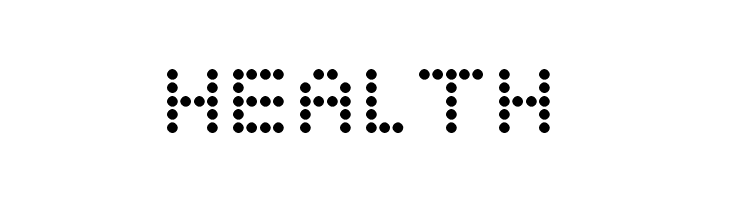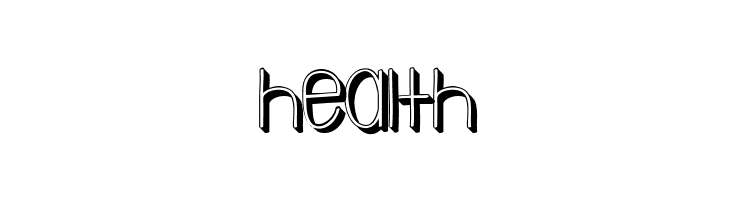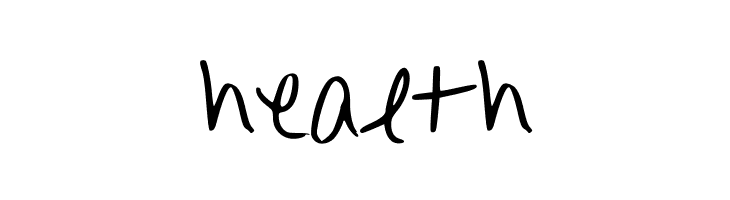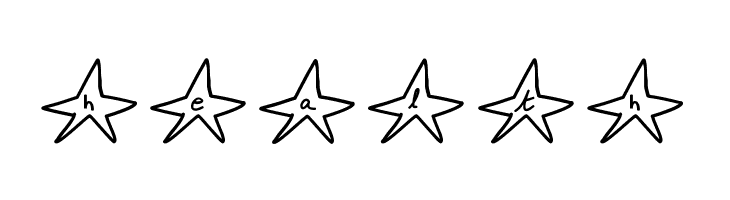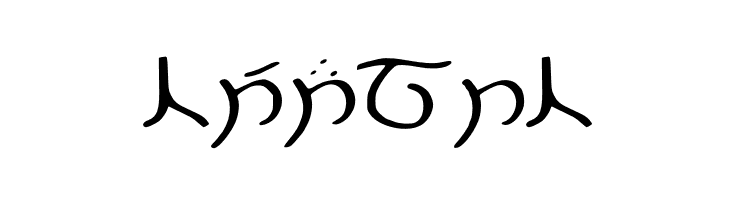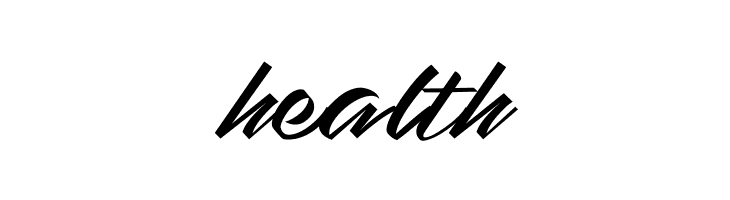
( David Brodie )
A bold, blocky font with rounded edges, perfect for retro or vintage-themed projects.
( Haldir - Joshua Eberli )
A decorative, fantasy-inspired font with intricate, flowing characters.
( Eldora Boo )
A dot-based font with a modern, digital aesthetic.
( Hanoded - David Kerkhoff - www.hanodedfonts.com )
A bold, distressed font with a rugged, industrial aesthetic.
( Gaelleing )
A whimsical, festive font with characters in star shapes and numbers as Christmas trees.
( Emily Lime Design - Emily Conners - www.emilylimedesign.etsy.com )
A playful 3D font with bold outlines and a modern twist.
( Haris Prawoto - graphicriver.net/user/selawe/portfolio )
A dynamic, flowing script font with elegant, interconnected letters.
( Erik Belbis )
A modern, geometric font with clean lines and a slightly condensed style.
( Emin Gokceoglu - be.net/emin )
A modern, geometric font with a futuristic and tech-inspired design.
( Erin Ockimey - jumperziam.tumblr.com )
A lively, handwritten-style font with a casual and personal touch.